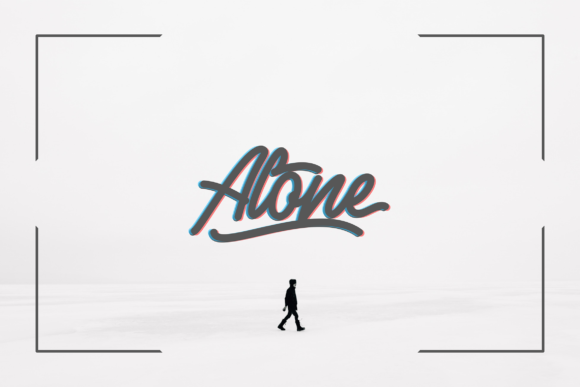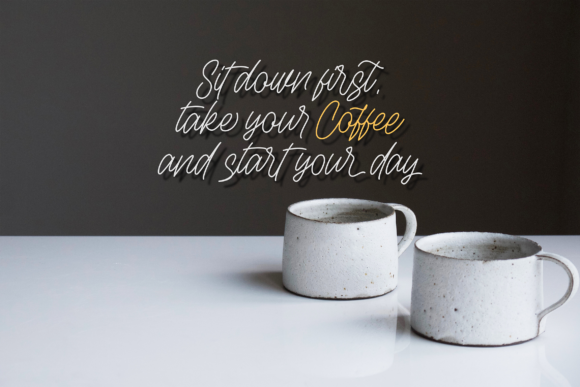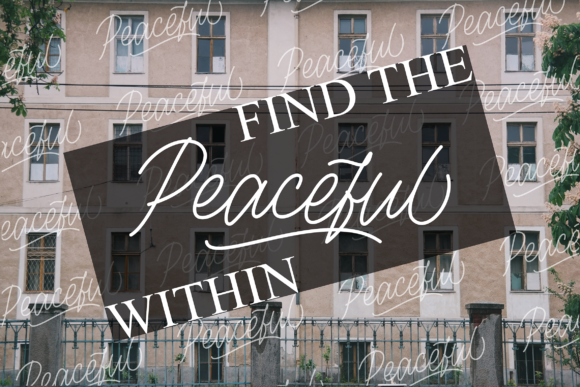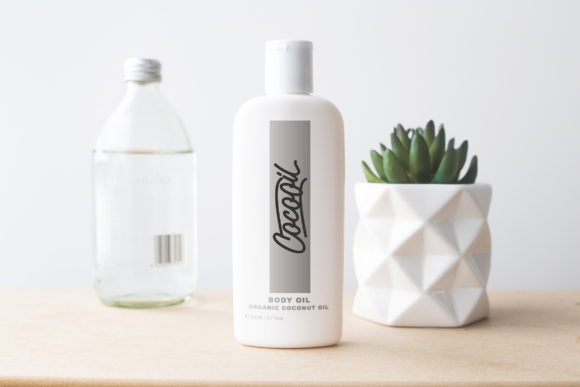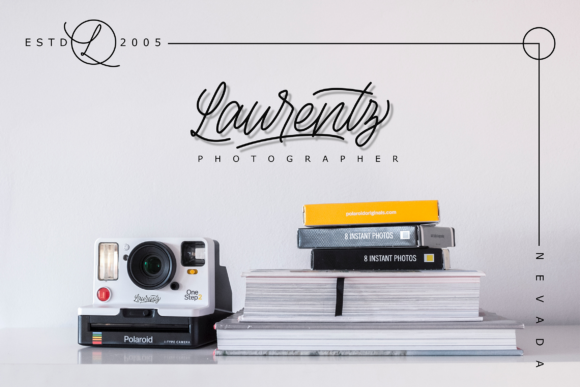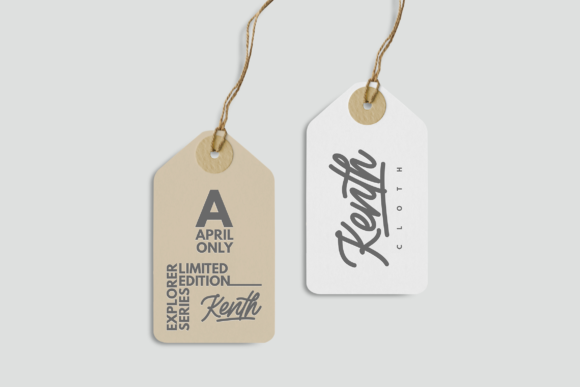
Introduction to Rottordam Font
As designers, we’ve all been there – staring at a blank canvas, struggling to find the perfect font to bring our creative vision to life. The search can be overwhelming, with countless options available online. But what if you stumbled upon a font that not only adds authenticity to your design project but also exudes a modern feel? Enter the Rottordam Font, a beautiful and light handwritten font that’s sure to spark your creativity.
Whether you’re working on a free download project or creating a design resource for a client, the Rottordam Font is a valuable asset to have in your toolkit. Its high-quality design and transparent background make it perfect for a variety of creative projects, from branding and marketing materials to social media graphics and more.
With the Rottordam Font, you’ll be able to add a personal touch to your designs and make them truly stand out. Its unique style and modern feel make it an ideal choice for designers looking to elevate their creative projects and take their designs to the next level.
Key Features of Rottordam Font
- Unique and modern design: Rottordam Font offers a distinctive and creative look that’s perfect for designers working on various projects.
- Perfect for creative projects: Rottordam Font is an excellent choice for designers working on branding, advertising, and other creative projects that require a unique and eye-catching font.
Honest Review: Rottordam Font
I recently had the opportunity to work with the Rottordam Font, and I must say it’s a great addition to any designer’s toolkit. The font is a high-quality design resource that’s perfect for creative projects.
- High-quality typography: The Rottordam Font has crisp, clean lines and a modern aesthetic that’s perfect for digital designs.
- Limited character set: While the font has a wide range of characters, it’s not a full Unicode font, which may limit its use in certain projects.
- Not ideal for large body text: The font’s modern aesthetic makes it perfect for headlines and titles, but it may not be the best choice for large blocks of body text.
Overall, I’m impressed with the Rottordam Font. It’s a great design resource for designers looking for a high-quality, modern font. With its transparent background and free download, it’s a great option for creative projects. While it has some limitations, I think it’s a solid choice for most designers.
Introduction to Rottordam Font
Tips for Getting the Most Out of Rottordam Font
To get the most out of Rottordam Font, experiment with different font sizes, colors, and combinations. You can also use the font in conjunction with other design elements, such as graphics and images, to create a unique and eye-catching design.